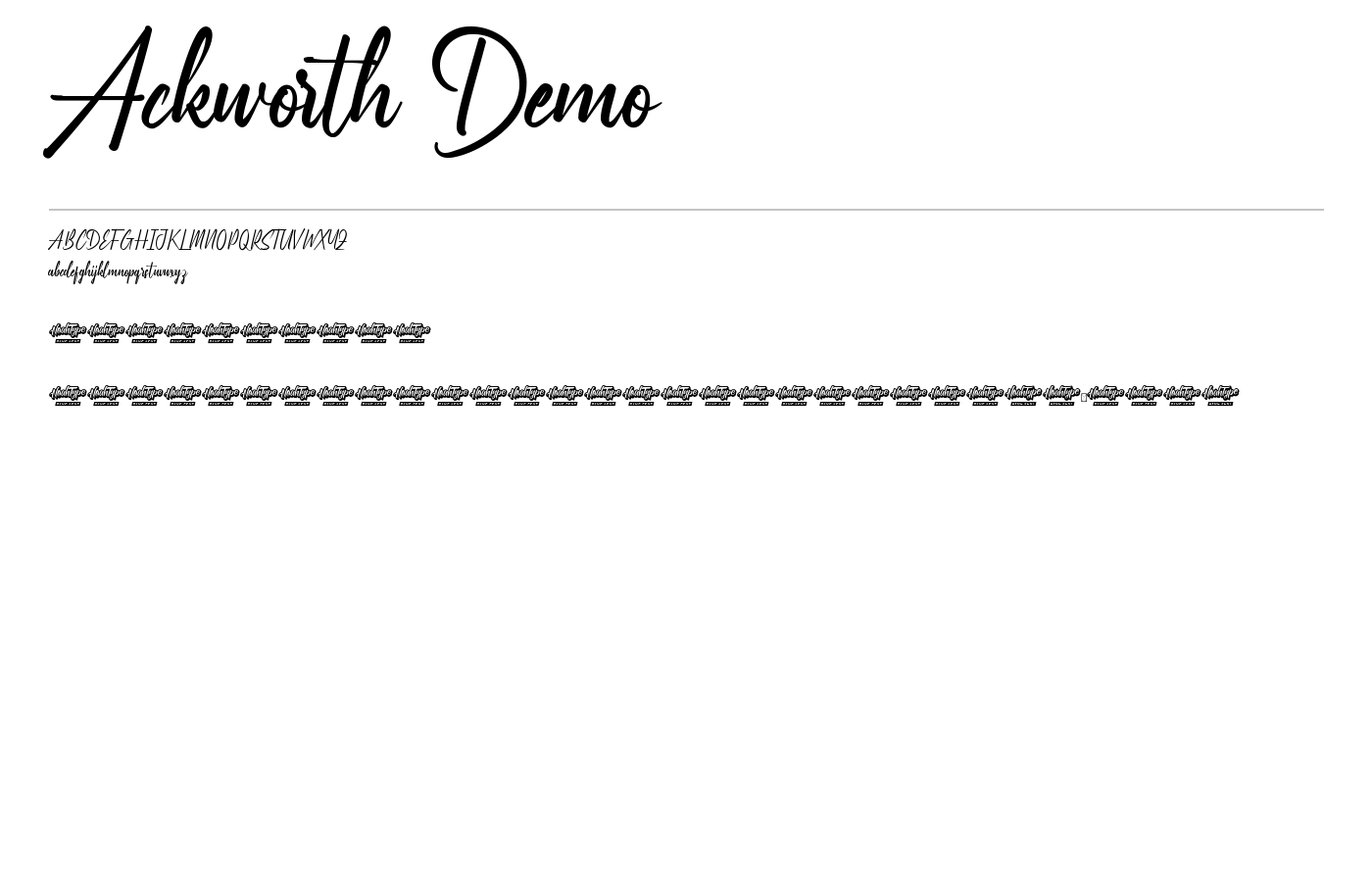
Ackworth Demo is a delicate, handwritten script font that exudes elegance and a personal touch with its fine, flowing strokes and graceful letterforms. Its slim weight and tall, slightly condensed style make it ideal for sophisticated branding, invitations, and elegant headlines where a refined, artistic feel is desired. This font works beautifully for projects that need a blend of charm and modernity without sacrificing readability.
Ackworth Demo Font
About Ackworth Demo Font
| Font family | Ackworth Demo Font |